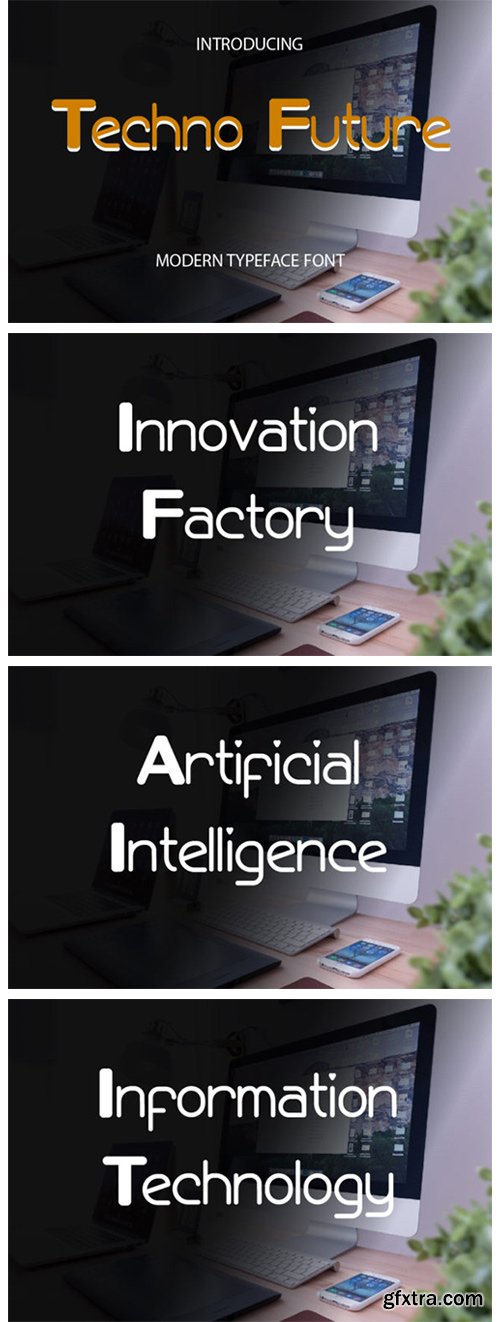
Techno Future Font
Techno Future is a minimal and neat sans serif font. It can easily be matched to an incredibly large set of projects, so add it to your creative ideas and notice how it makes them stand out!